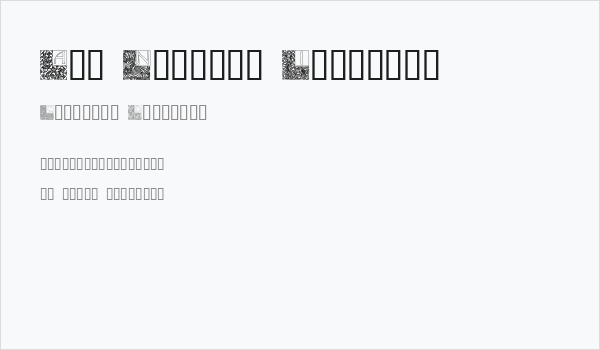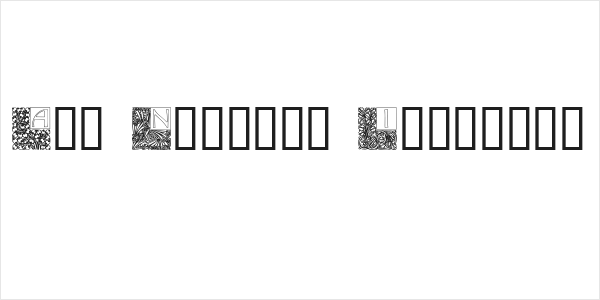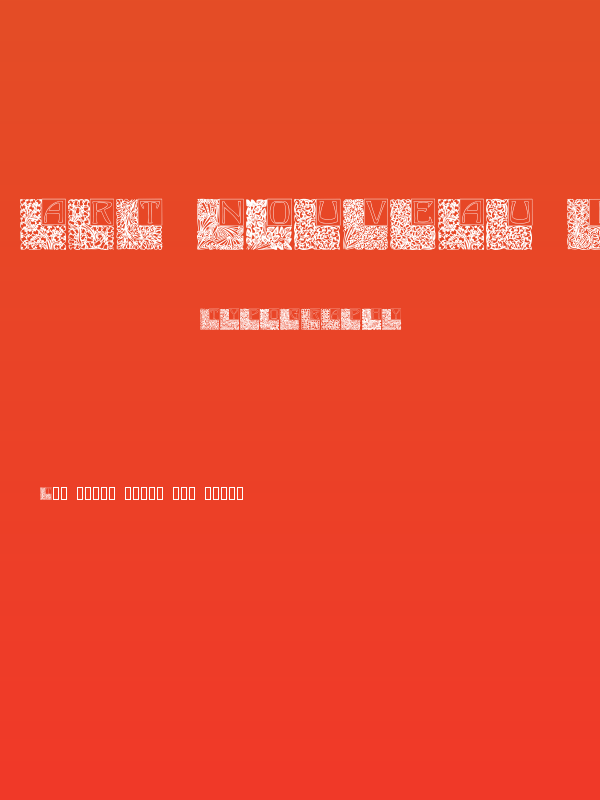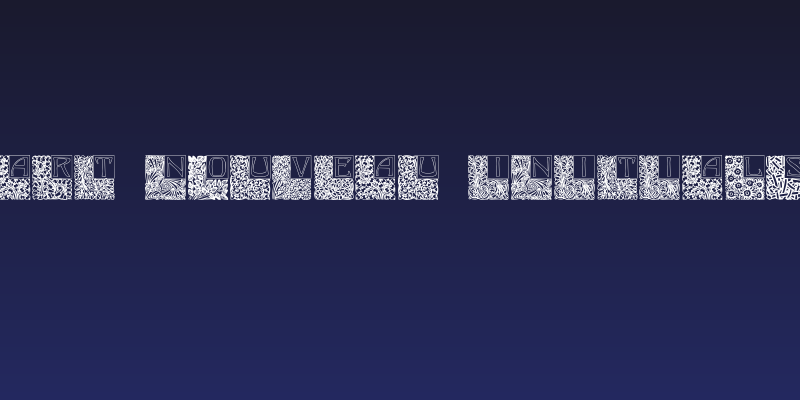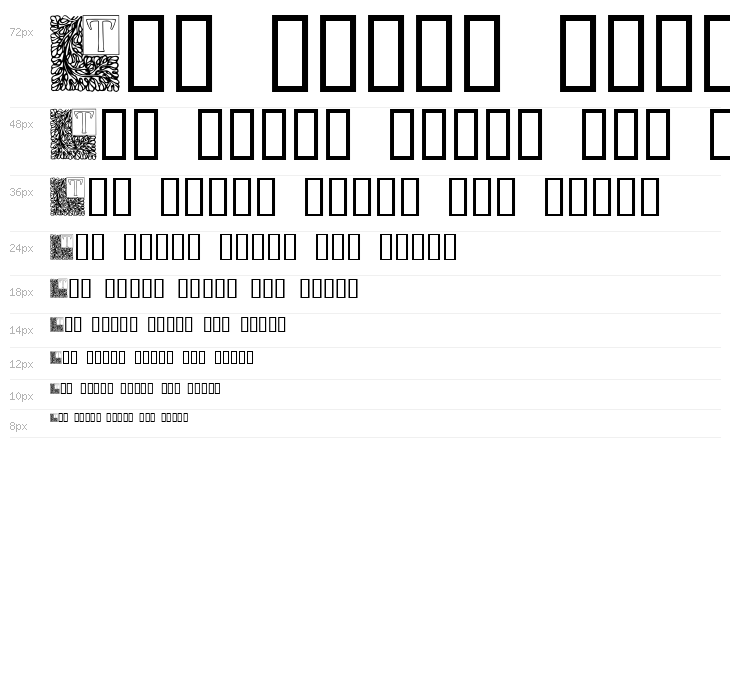
Art Nouveau Initials Font
Art Nouveau Initials Description
This decorative font features uppercase letters intricately designed with Art Nouveau-inspired patterns. Each letter is enclosed in a square, showcasing elaborate floral and organic motifs that are characteristic of the Art Nouveau style. The design is highly ornamental, with each character appearing as a unique piece of art. The letters are bold and have a strong presence, making them ideal for decorative purposes. The intricate details and flowing lines create a sense of elegance and sophistication, perfect for projects that require a touch of vintage charm.
| Proposed Projects | Ideal for decorative projects such as wedding invitations, vintage-themed posters, book covers, and artistic branding. |